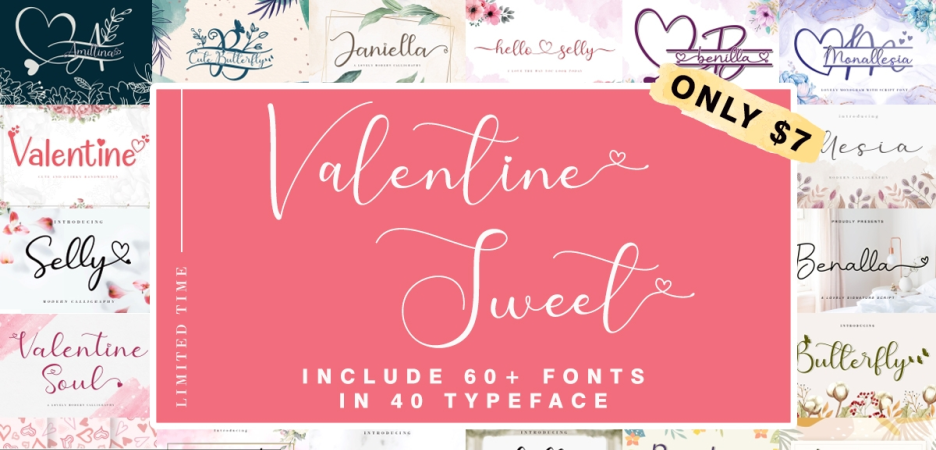
Elevate your designs with the Valentine’s Sweet Fonts Bundle, a carefully curated collection of charming and romantic typefaces. This bundle features a variety of font styles, including script, serif, and sans-serif, all designed to add a touch of love to your projects.
- Multiple font styles: script, serif, and sans-serif
- Various weights for flexibility in design
Each font in this bundle is crafted with attention to detail, ensuring legibility and aesthetic appeal. The script fonts are perfect for invitations, greeting cards, and branding, while the serif and sans-serif options provide versatility for web and print applications.
Utilize these fonts for a variety of applications including wedding invitations, social media graphics, and promotional materials. The playful and elegant styles make them ideal for any project that aims to convey warmth and affection.